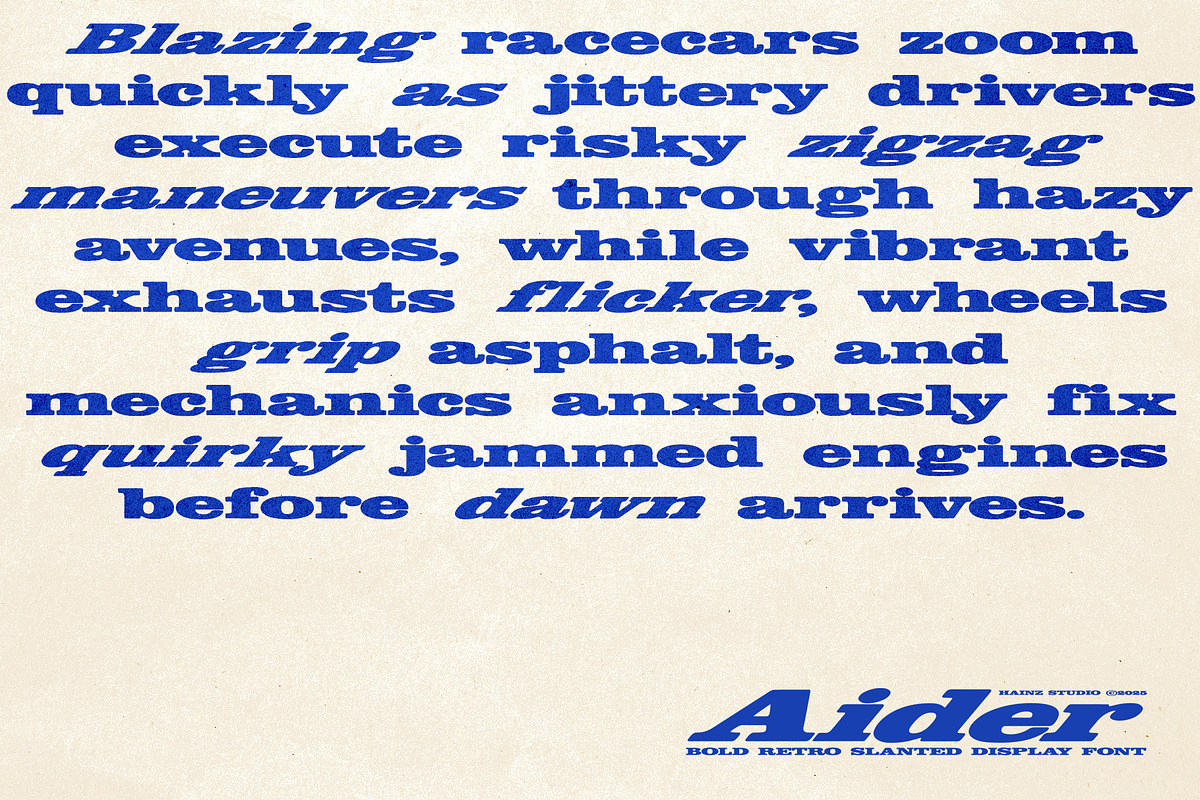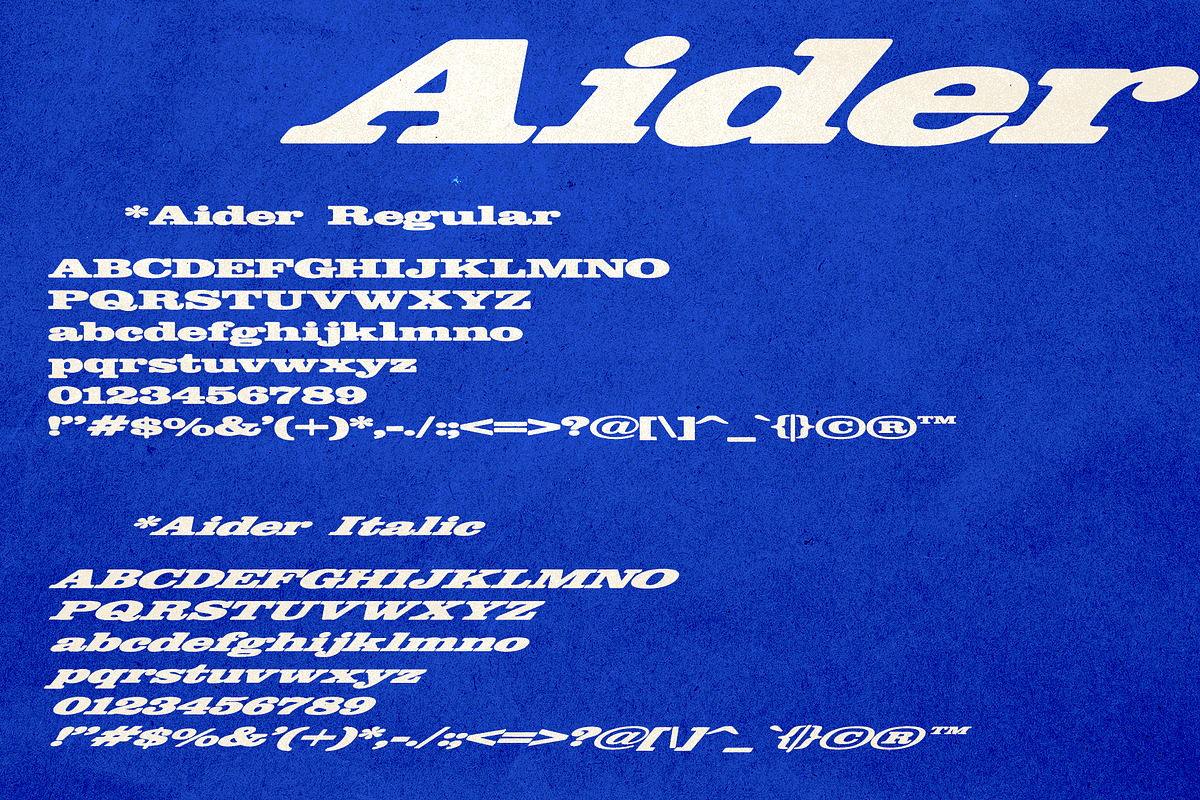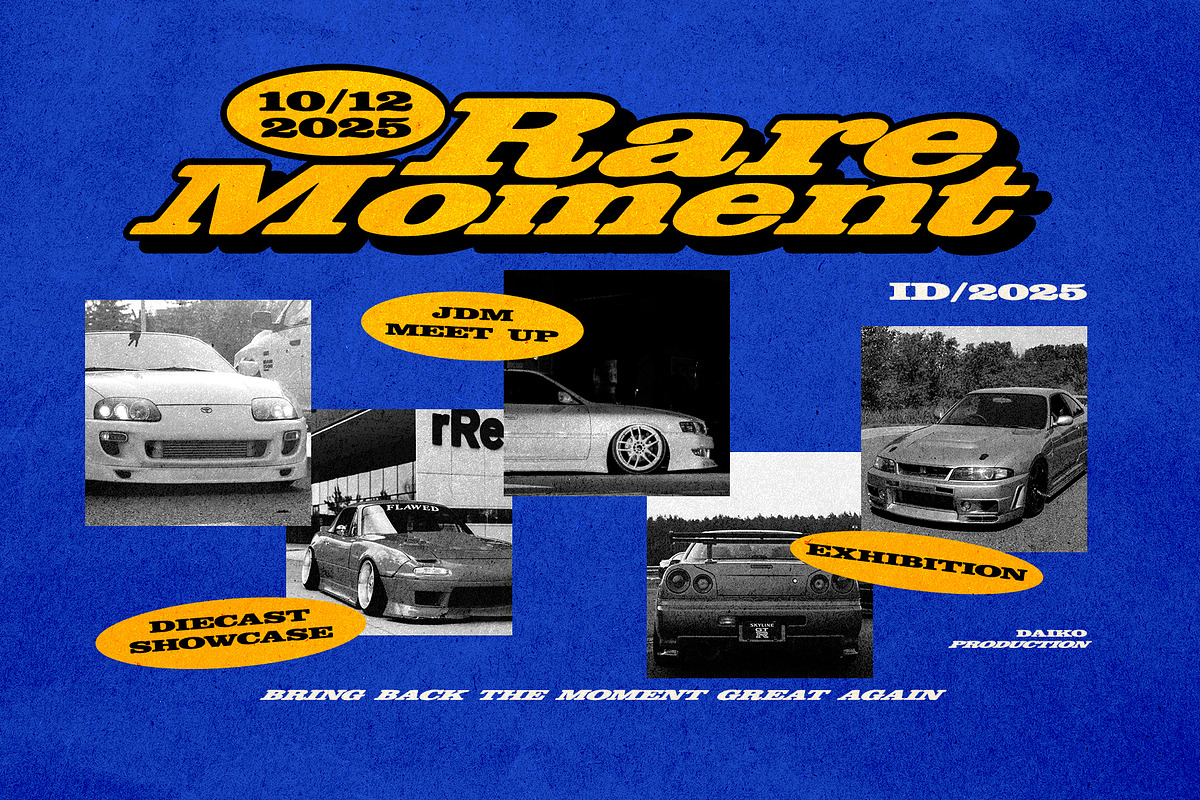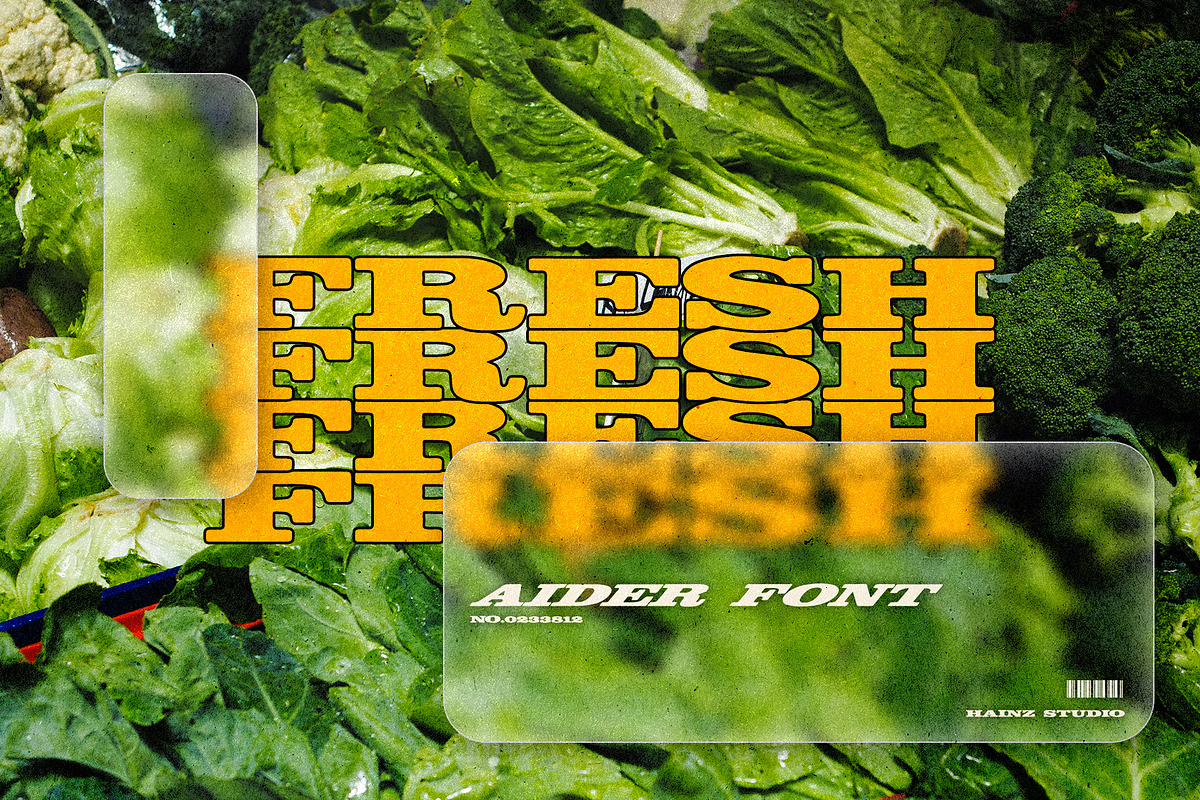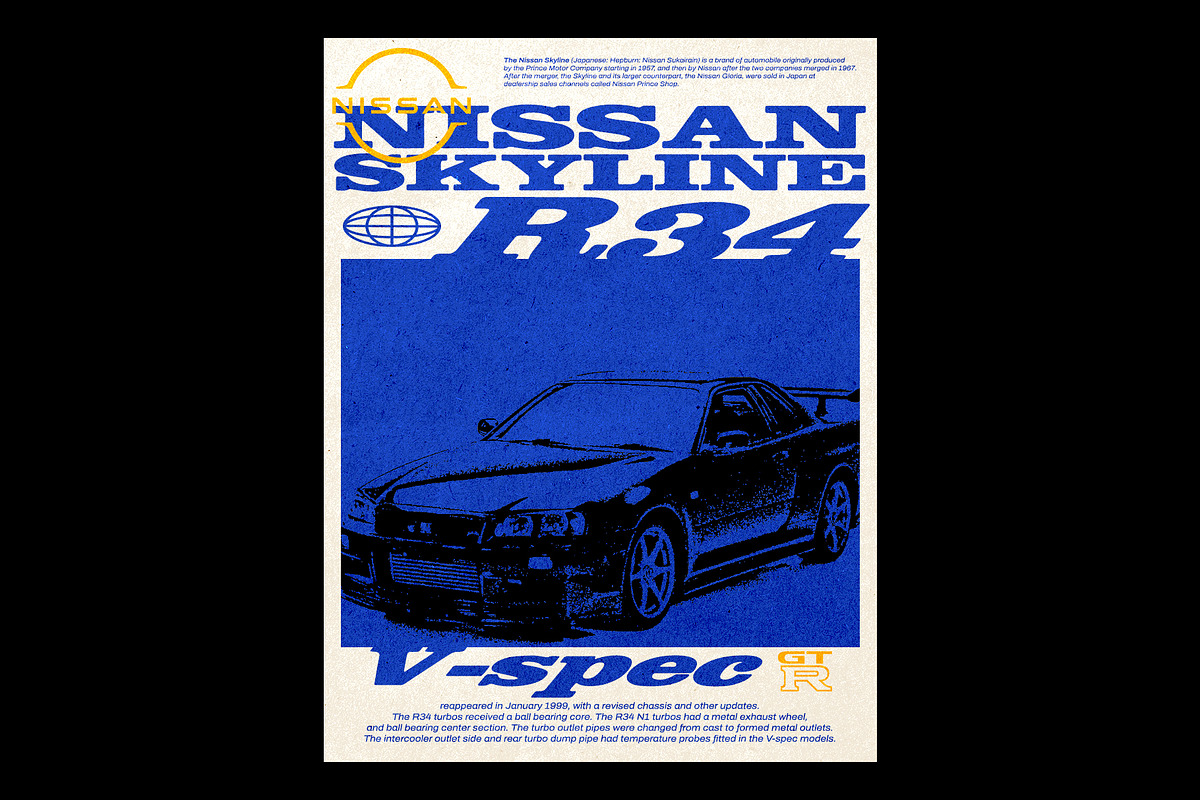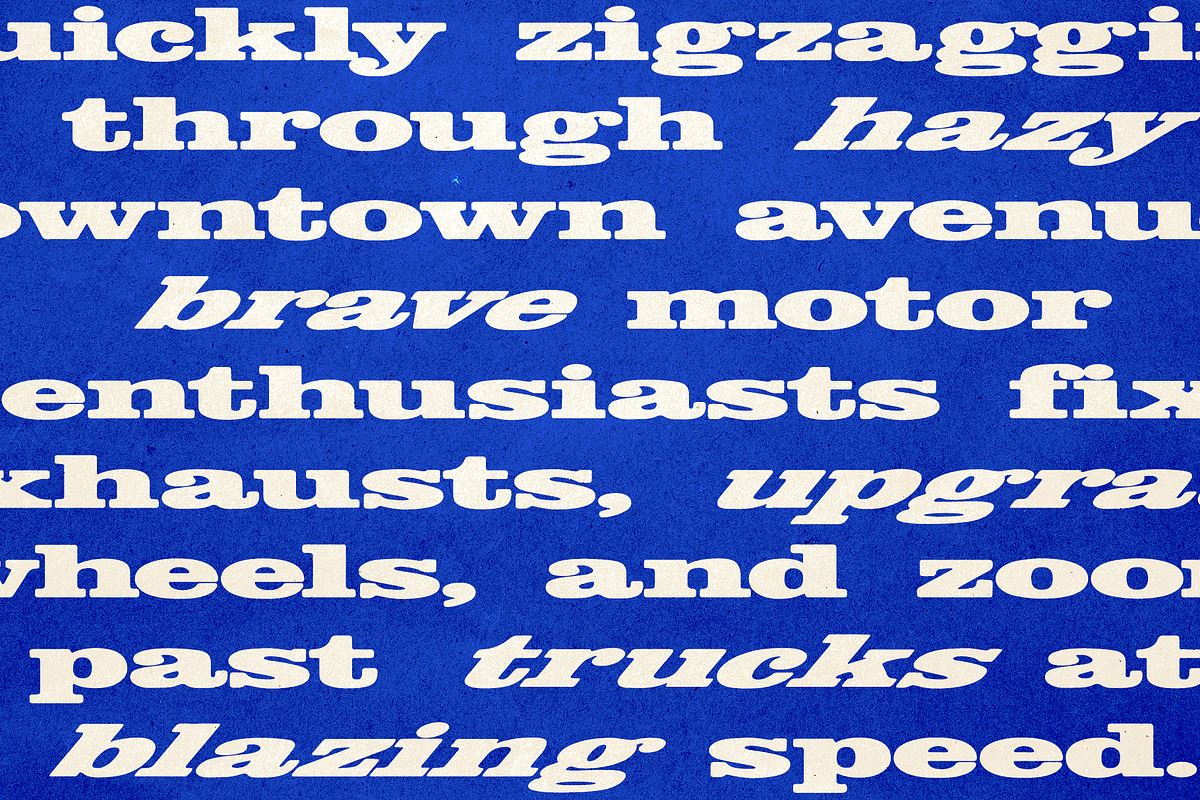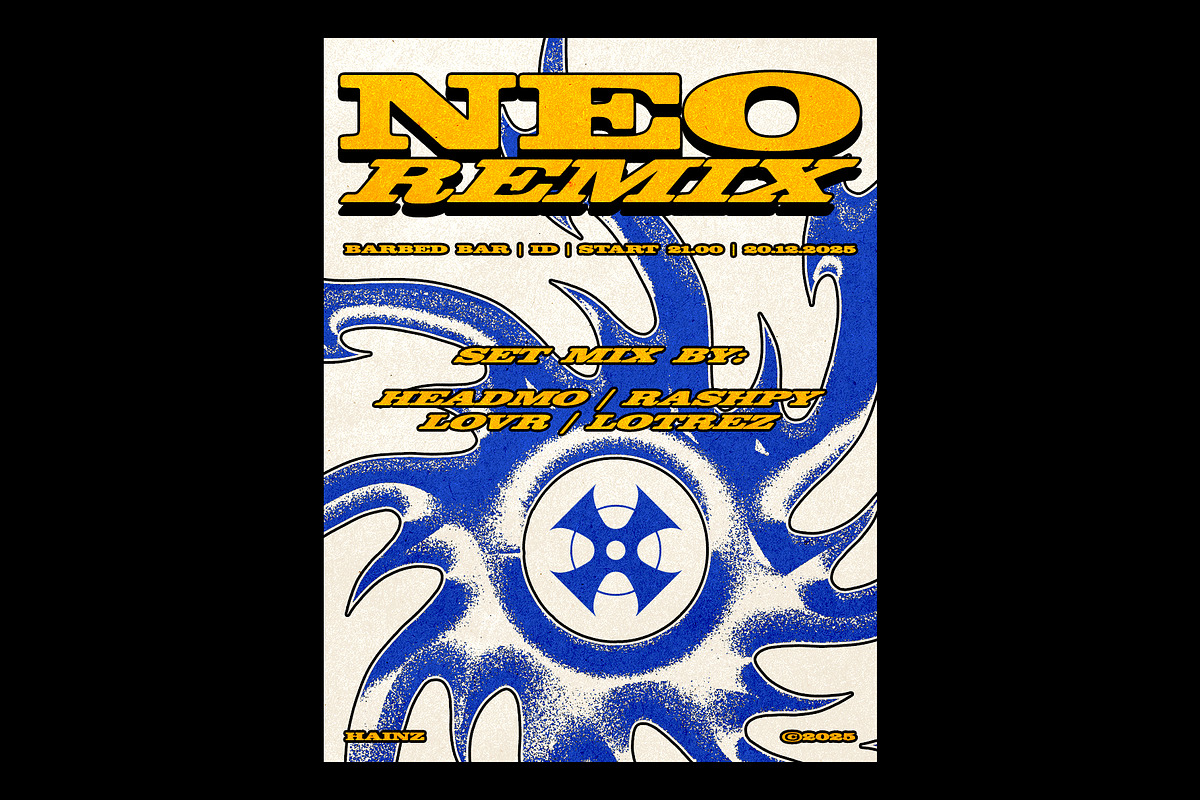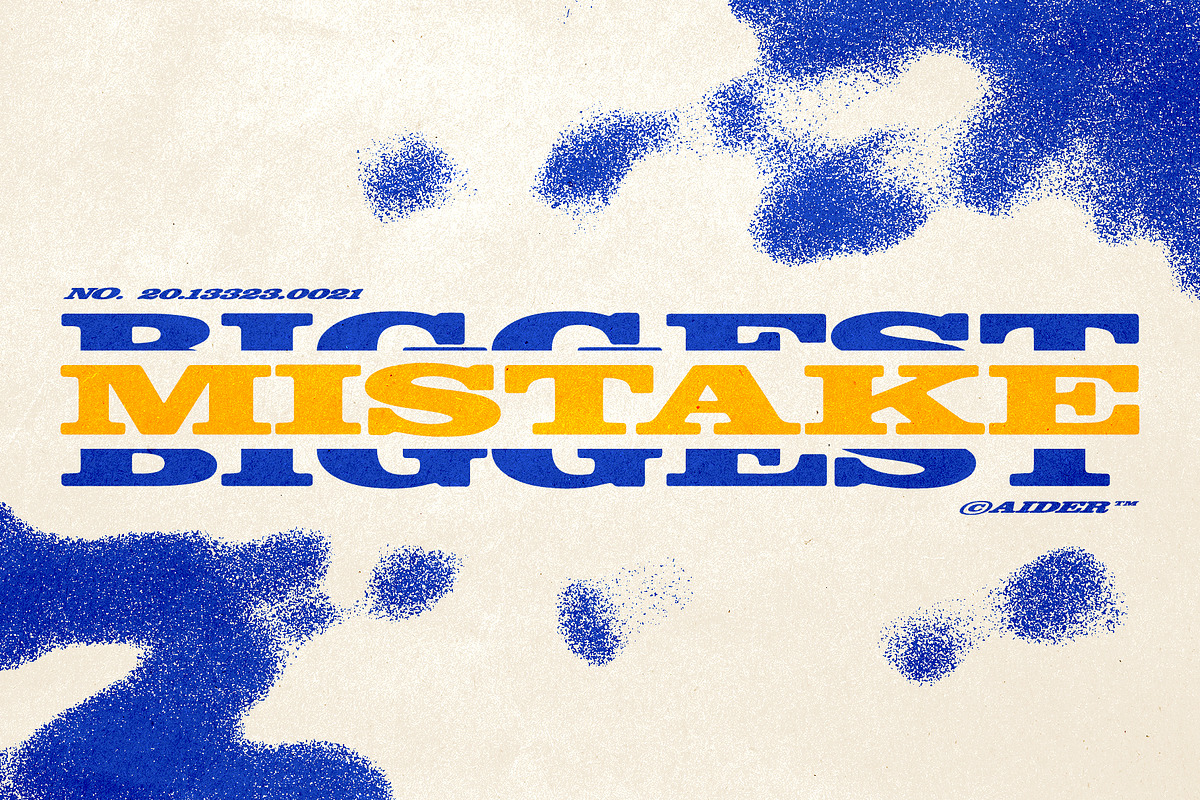
AIDER - Bold Retro Slanted Display
Aider — Bold Retro Slanted Display Font
Aider is a bold retro-inspired display font designed with wide shapes, smooth curves, and a dynamic slanted style. Its strong visual presence brings a perfect blend of vintage sports aesthetics, Y2K futurism, and retro typographic energy. Whether you're creating posters or branding, Aider delivers an instant statement.
🌐This font comes in 2 expressive styles:
- Aider Regular — bold, clean, and impactful
- Aider Italic — energetic, stylish, and full of movement
- Use them together for striking layouts and modern-retro compositions.
🌐Perfect For:
- Retro / Vintage Posters
- Y2K Aesthetic Designs
- Branding & Logo Titles
- Music & Event Flyers
- Editorial / Magazine Headlines
- Social Media Graphics
- Apparel & Merchandise
- Bold Typographic Layouts
🌐Features:
- 2 Styles: Regular & Italic
- Full Uppercase & Lowercase
- Smooth bold curves for a strong visual impact
- Works great in both large headlines and stylized layouts
🌐Why Choose Aider? Aider is made for designers who want typography that stands out. Its heavy weight, slanted rhythm, and retro-futuristic look make it ideal for expressive, nostalgic, sporty, or experimental compositions. A perfect choice when you need bold character and personality in your design.